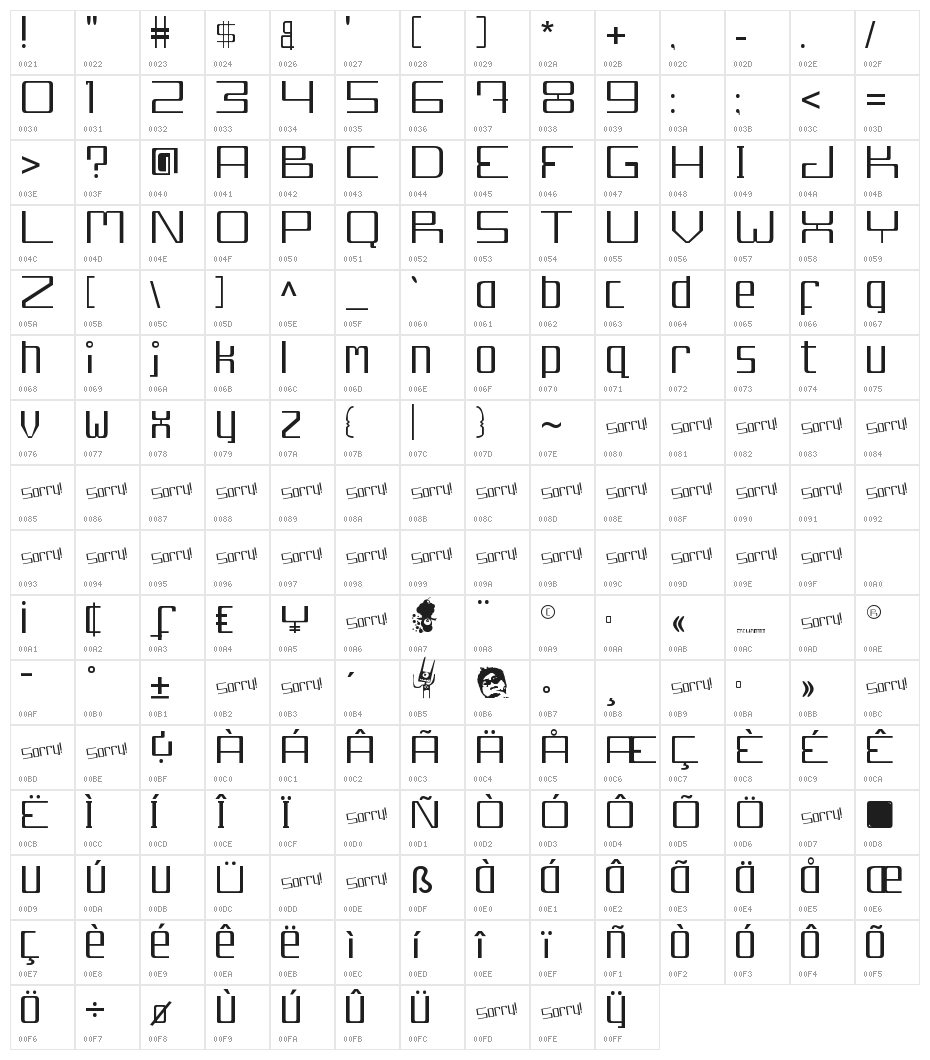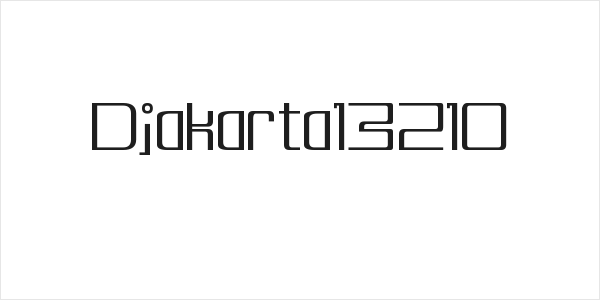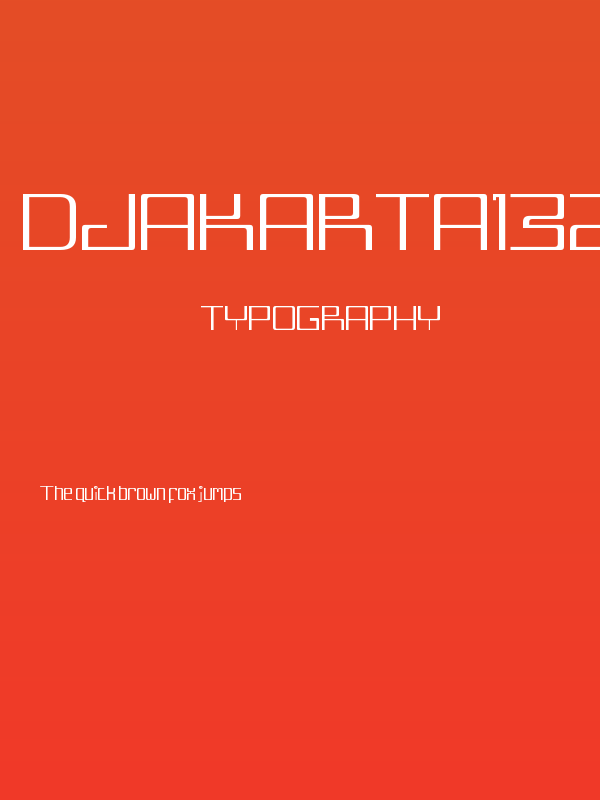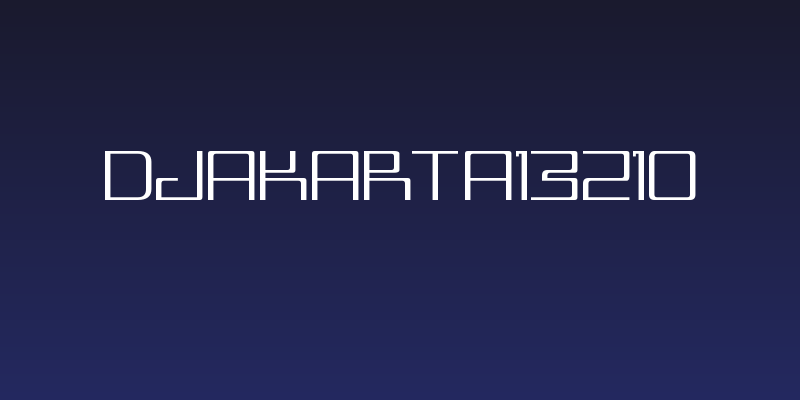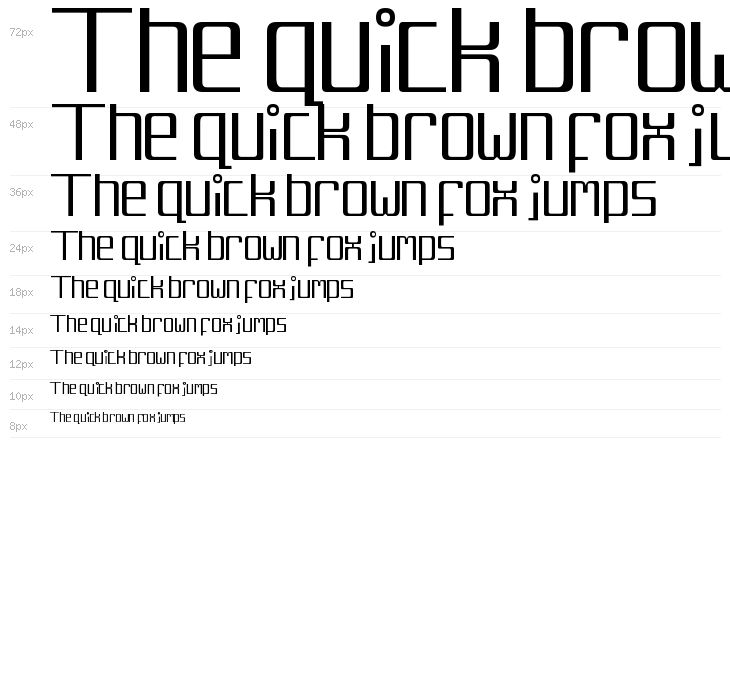
Djakarta13210 Font
Djakarta13210 Description
This font features a modern and geometric design with a distinct, futuristic feel. The uppercase letters are constructed with clean, straight lines and sharp angles, giving them a technical and structured appearance. The lowercase letters maintain a similar geometric style but with slightly softer curves, adding a touch of approachability. The numerals are consistent with the overall design, featuring a boxy and uniform structure. Special characters are uniquely styled to match the font's modern aesthetic, with some incorporating playful elements. The font's overall look is sleek and minimalistic, making it suitable for contemporary design projects.
| Use Case | Headlines, Logos, Digital interfaces |
| Proposed Projects | Ideal for tech branding, digital interfaces, modern posters, and futuristic-themed designs. |